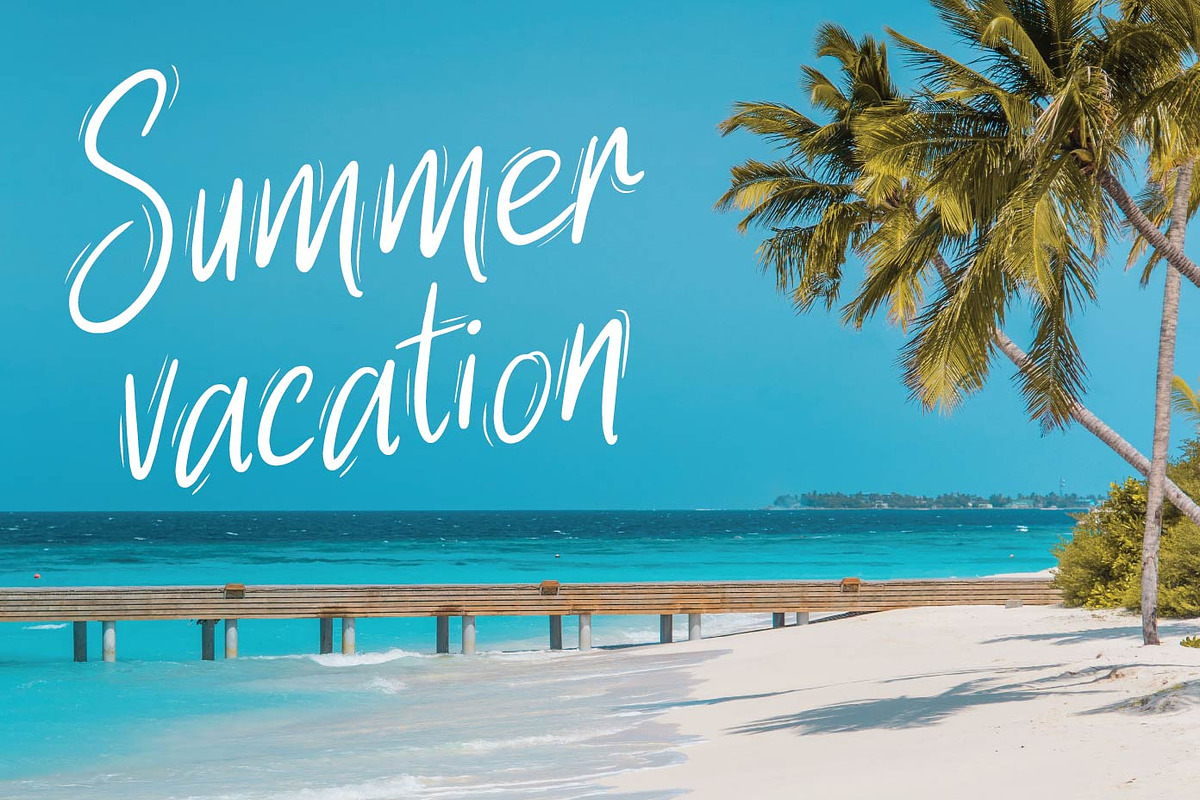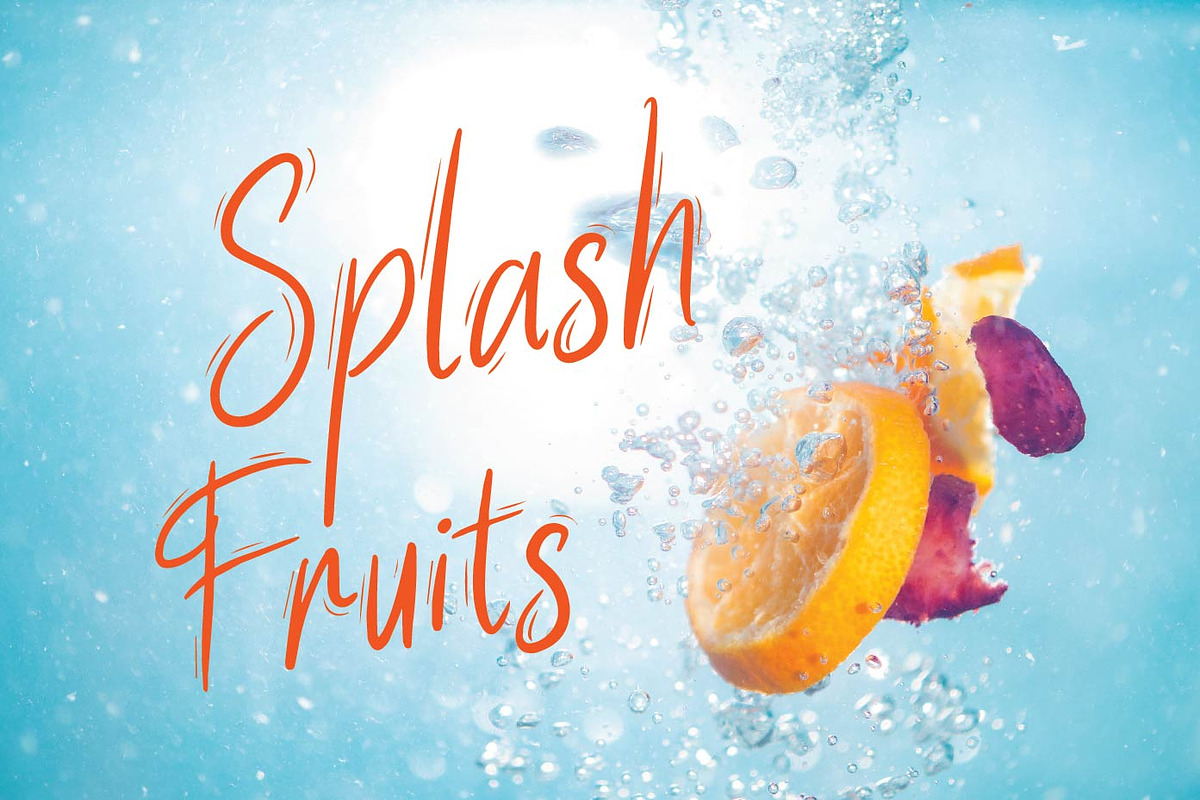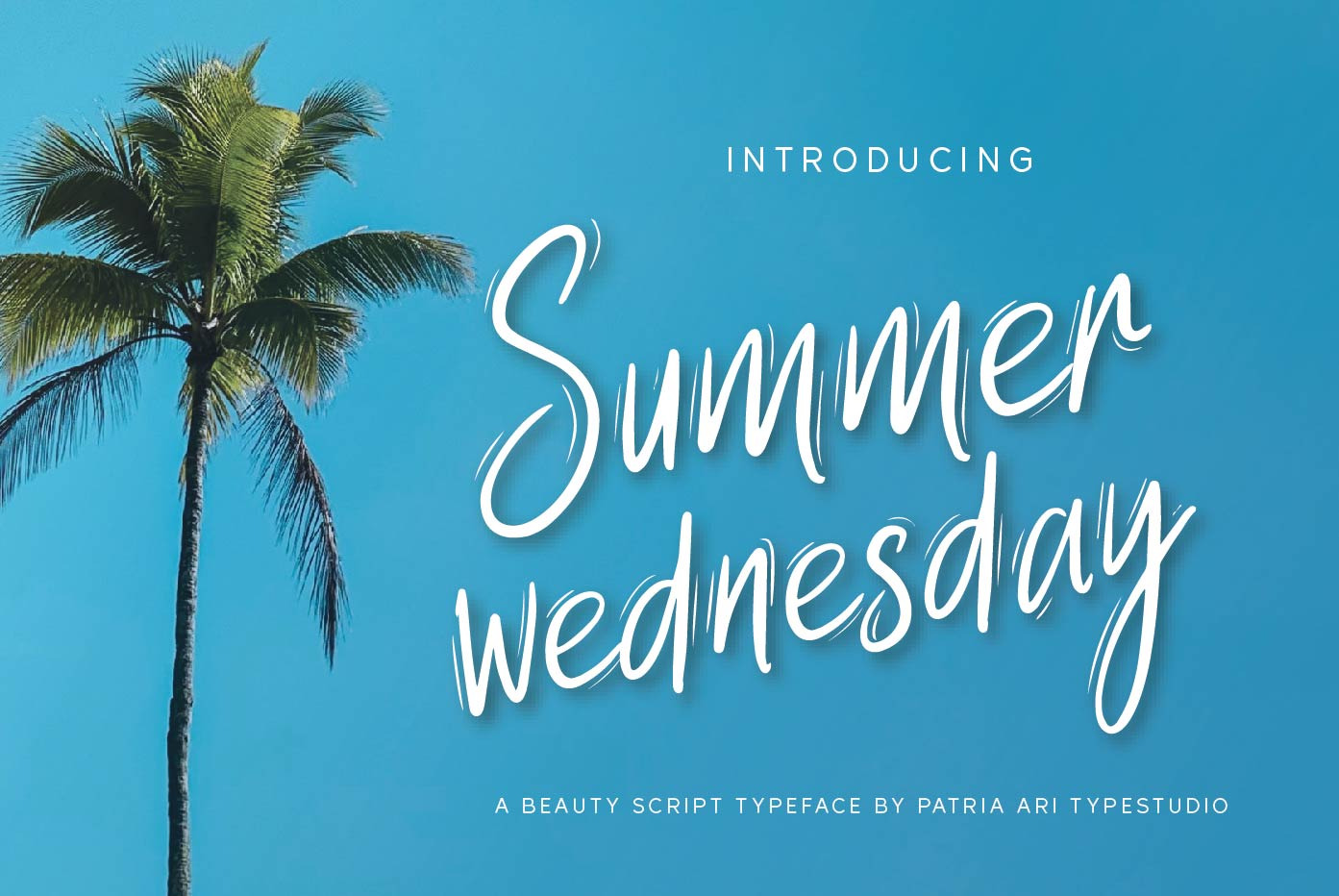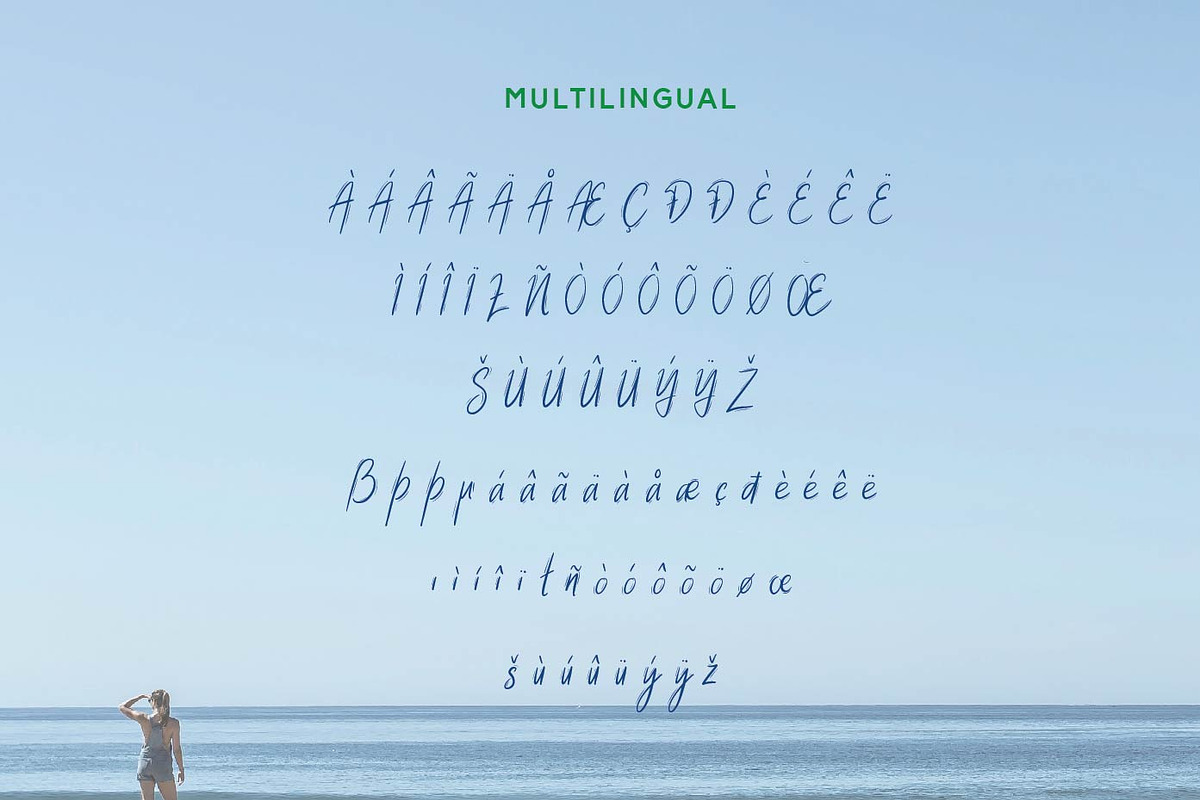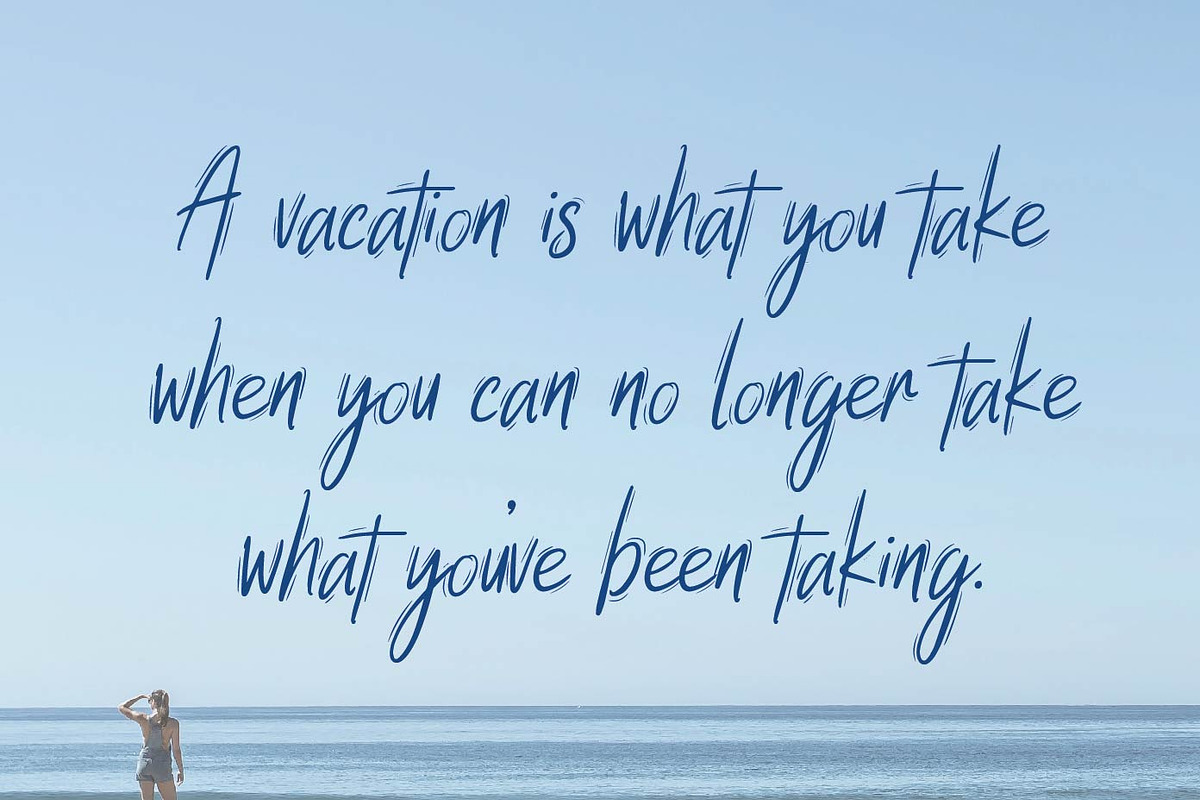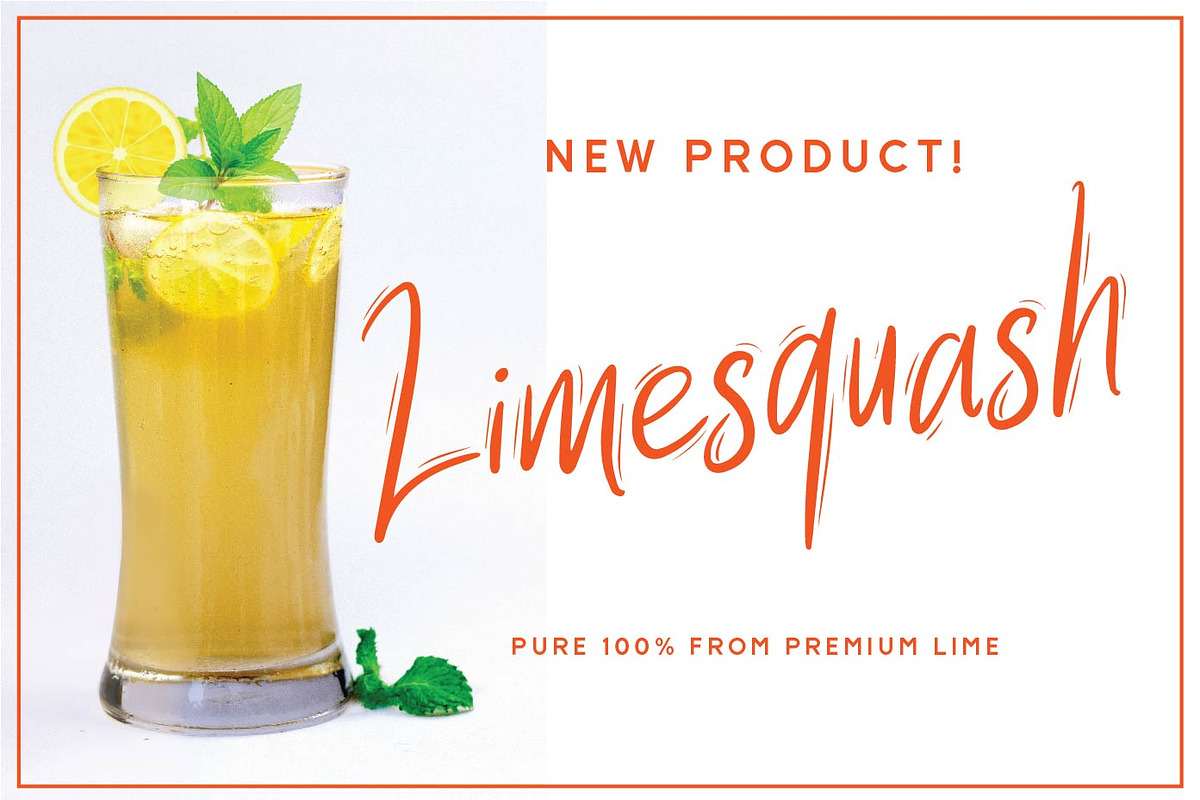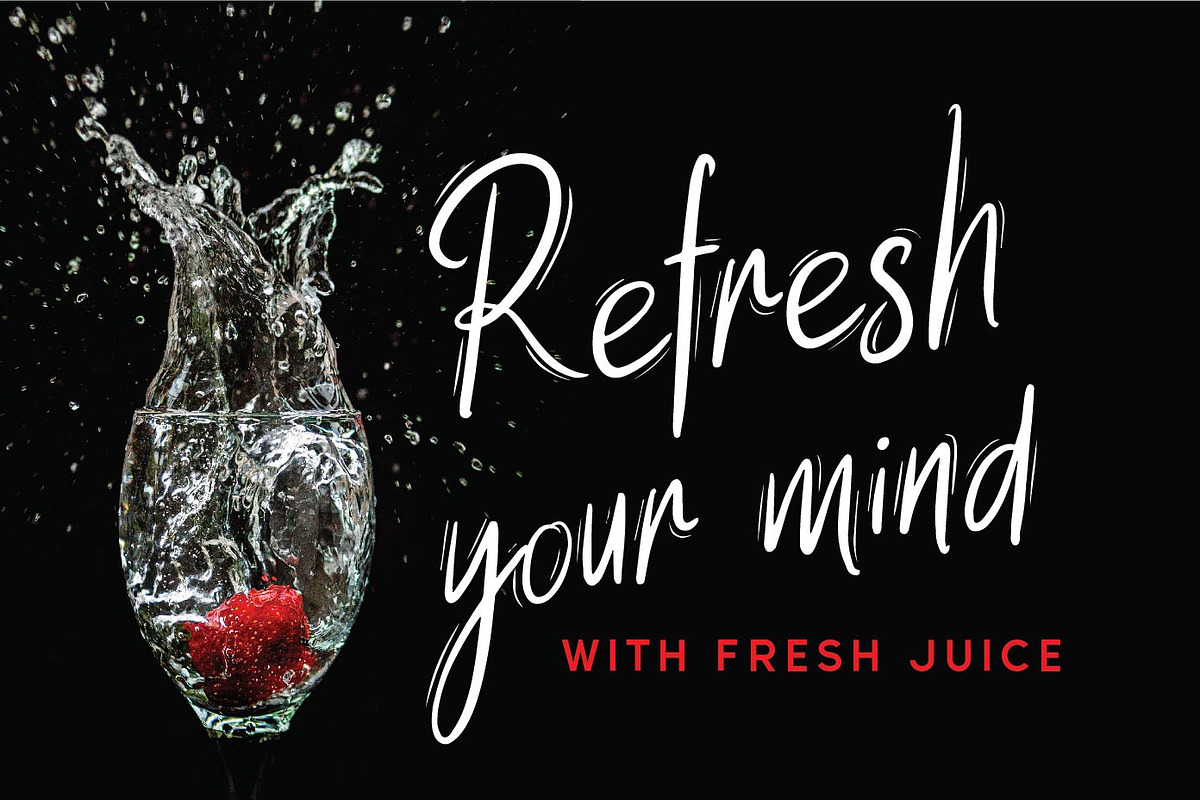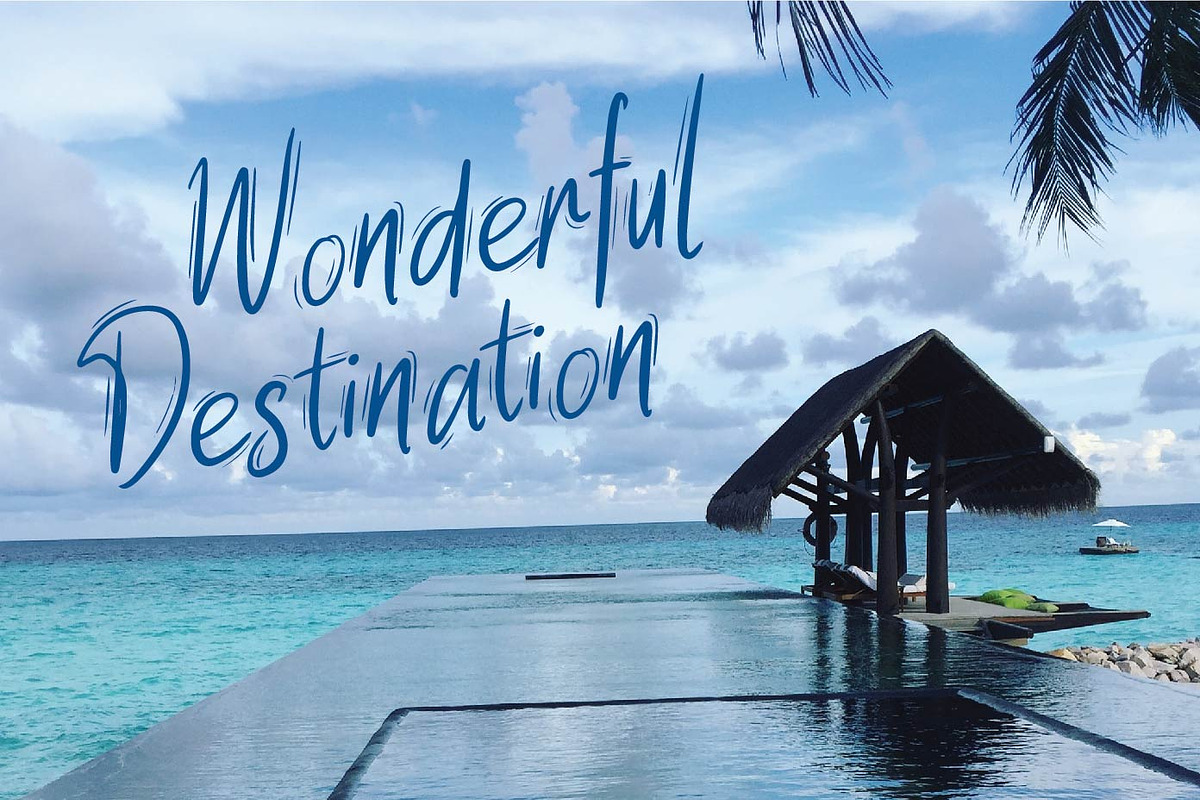
Summer Wednesday - Handwritten Fonts
Summer Wednesday is a handwritten display typeface inspired from the beach vibes.
Summer Wednesday is perfect for social media posts, advertisements, product packaging, product designs, label, and any projects that you work on.
Fonts featured :
Uppercase Lowercase Numbers Punctuation & symbols Multilingual